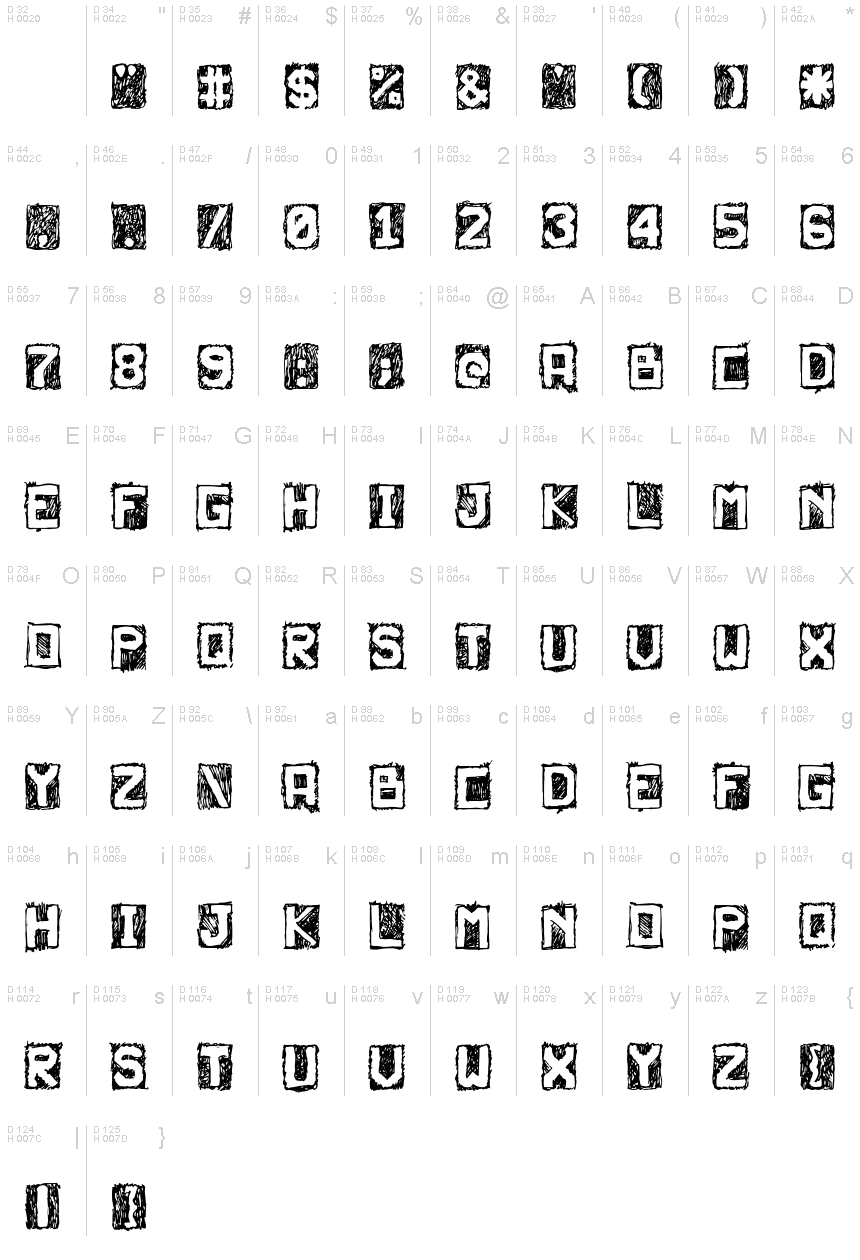
Neturality
Neturality is a bold, display font that exudes an unmistakable sense of raw, gritty energy. Its jagged, irregular letterforms evoke a raw, industrial aesthetic, reflecting a rugged urban sensibility. The uneven, almost handwritten quality of the type lends a distinct sense of personality and character, making it well-suited for headlines, branding, and edgy design projects.
Neturality's striking visual impact is further amplified by its bold, heavyweight stroke, which commands attention and leaves a lasting impression. This font's versatility extends beyond the realm of print, as its bold presence would also translate well to digital applications, such as website headers, app interfaces, and social media graphics.